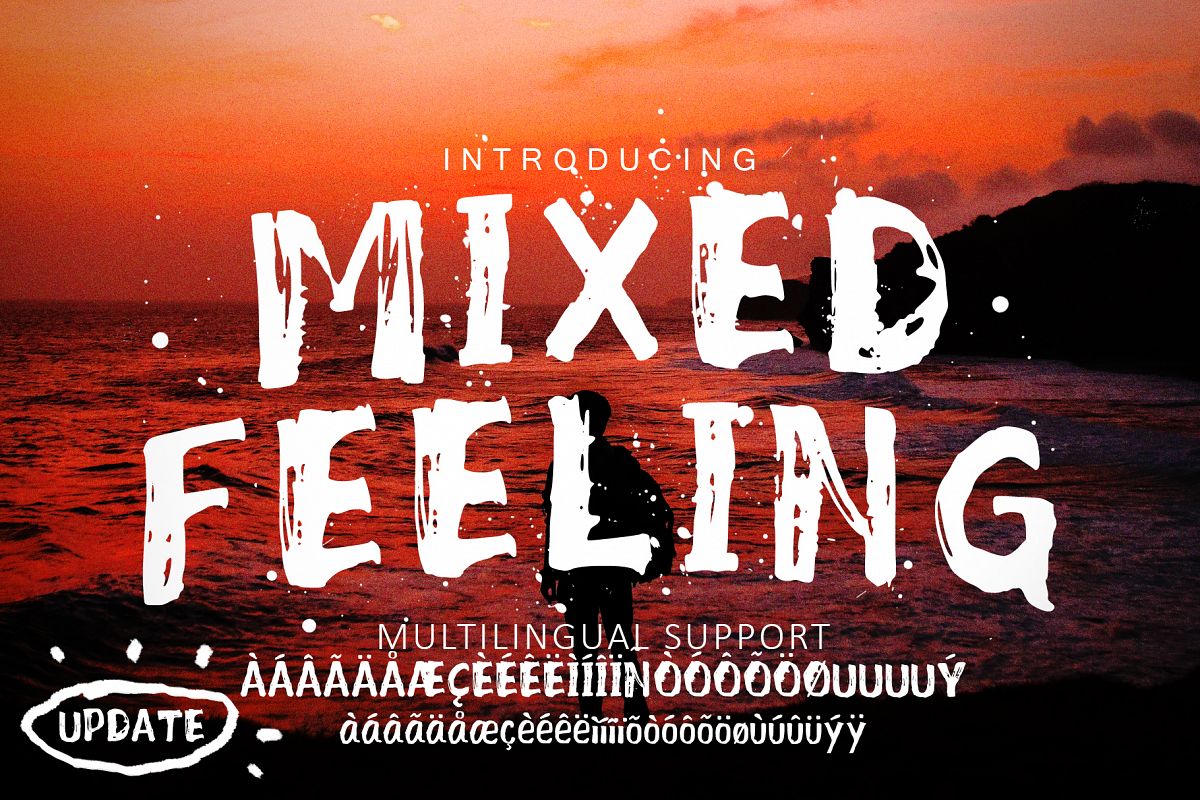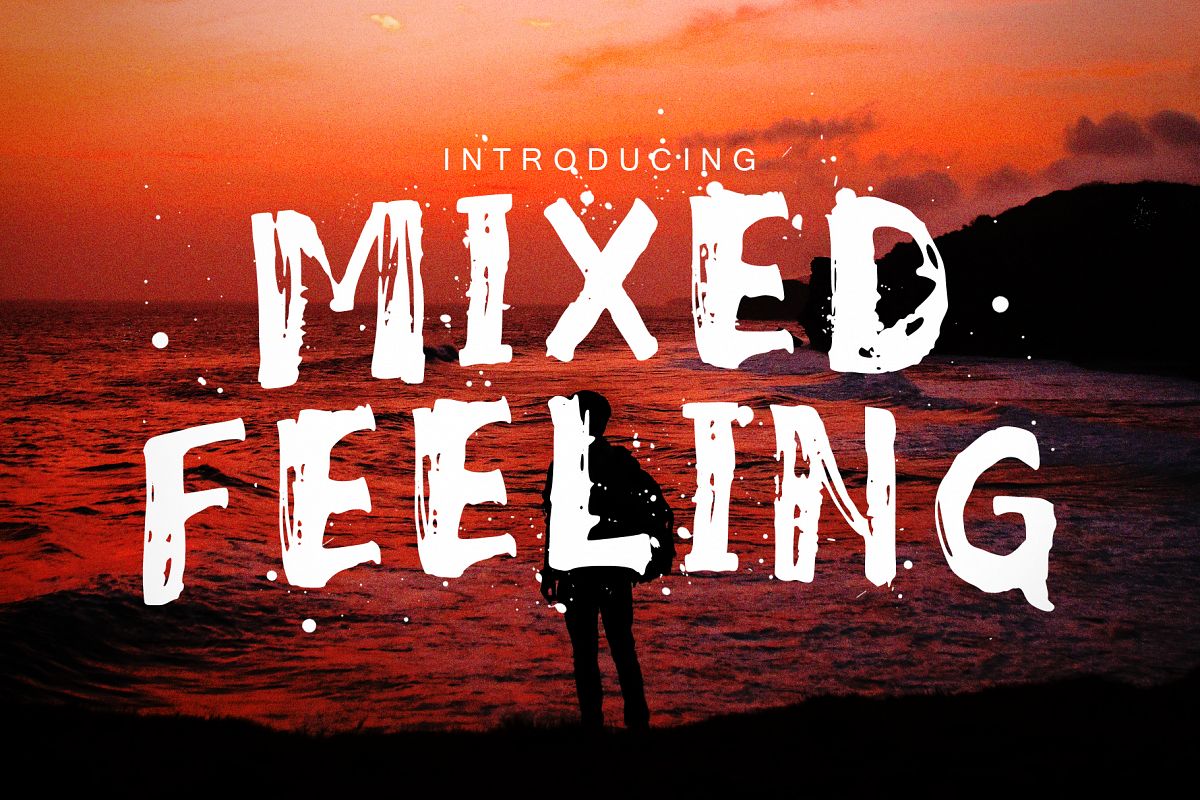
Mixed Feeling Font
Introducing
Mixed Feeling font, rough font from manual hand drawn real brush, its
bold, rough and messy. You can use it for cover profile social media,
instagram post, clothing, books,album covers, poster, any printable
project .etc
• Uppercase, lowercase, number and symbol
• support for 12 languages:
Afrikaans
Albanian
Catalan
Danish
Dutch
English
Italian
Norwegian
Portugese
Spanisch
Swedish
Zulu